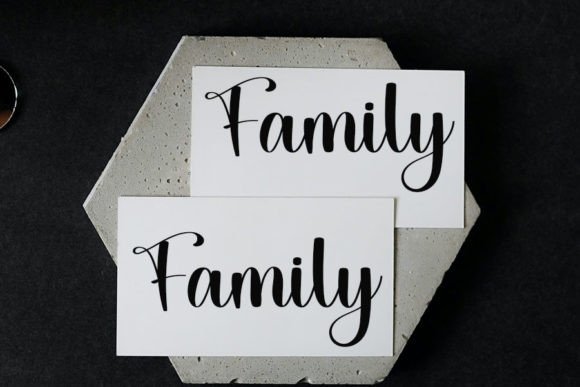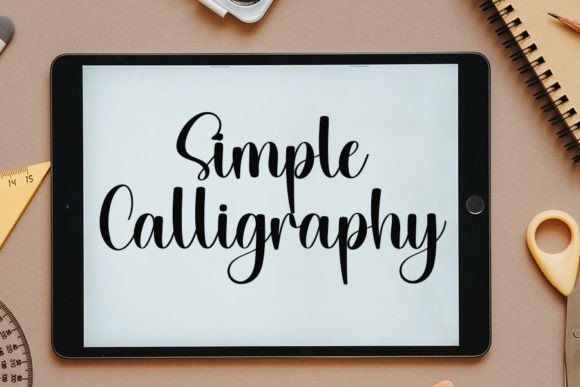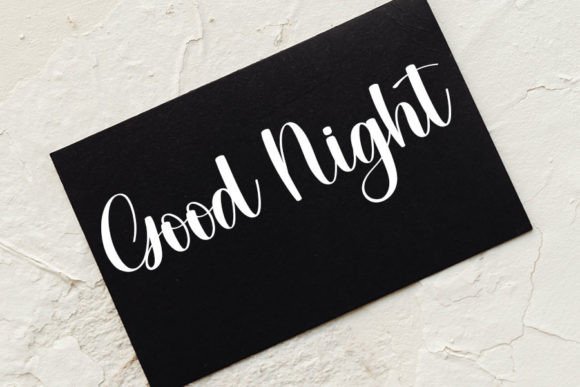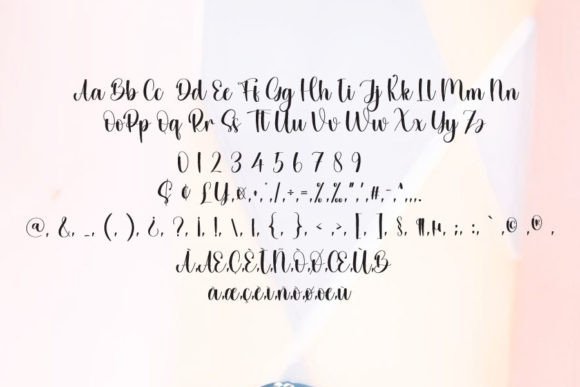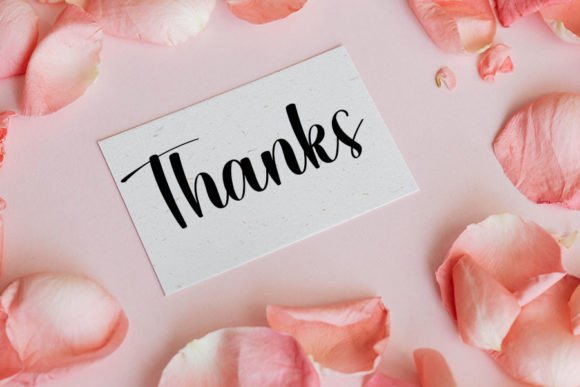
Bully Font: The Simple Handwritten Font for Your Creative Projects
Are you looking for a font that can add a personal touch to your designs? Look no further than the Bully Font! This simple handwritten font is versatile and can be used in a wide range of applications, from greeting cards to headlines. In this article, we’ll explore the features and benefits of the Bully Font and why it’s a great choice for designers and crafters.
What is Bully Font?
Bully Font is a handwritten font that exudes a sense of simplicity and naturalness. It’s perfect for designers and crafters who want to add a personal touch to their projects without overpowering them with complex typography. The font has a unique, hand-crafted feel that makes it stand out from more traditional fonts.
Features of Bully Font
- Simple and Handwritten: Bully Font has a simple, handwritten style that’s perfect for adding a personal touch to your designs.
- Versatile: This font can be used in a wide range of applications, from greeting cards to headlines, and even social media graphics.
- Natural Feel: Bully Font has a natural, organic feel that makes it perfect for designs that require a personal touch.
- Easily Readable: The font is clear and easy to read, making it perfect for body text and headlines.
Benefits of Using Bully Font
So, why should you choose Bully Font for your next project? Here are just a few benefits of using this versatile font:
- Adds a Personal Touch: Bully Font adds a personal touch to your designs, making them more relatable and engaging.
- Perfect for Various Applications: This font can be used in a wide range of applications, from print to digital media.
- Easy to Read: Bully Font is clear and easy to read, making it perfect for body text and headlines.
- Time-Saving: With Bully Font, you can create professional-looking designs in no time, saving you time and effort.
How to Use Bully Font in Your Designs
Using Bully Font in your designs is easy! Here are a few tips to get you started:
- Pair it with Other Fonts: Pair Bully Font with other fonts to create a unique and visually appealing design.
- Use it for Headlines: Use Bully Font for headlines and titles to add a personal touch to your designs.
- Experiment with Colors: Experiment with different colors to find the perfect combination that works with Bully Font.
- Keep it Simple: Keep your design simple and clean to let Bully Font shine.
Who Can Benefit from Bully Font?
Bully Font is perfect for designers, crafters, and anyone who wants to add a personal touch to their designs. Here are a few examples of who can benefit from this font:
- Graphic Designers: Graphic designers can use Bully Font in a wide range of applications, from brochures to social media graphics.
- Crafters: Crafters can use Bully Font for their handmade projects, such as greeting cards, scrapbooking, and DIY crafts.
- Small Business Owners: Small business owners can use Bully Font for their branding, packaging, and marketing materials.
In conclusion, Bully Font is a simple handwritten font that’s perfect for designers and crafters who want to add a personal touch to their designs. With its versatile style and natural feel, Bully Font is guaranteed to add a simple and natural feel to your next project! So, why not give it a try and see how it can elevate your designs?